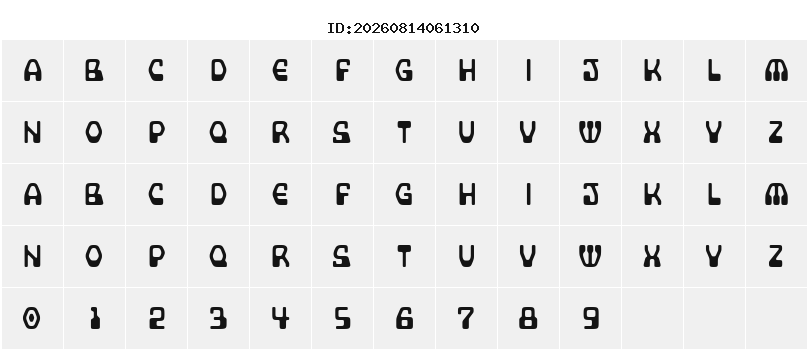
• Font Name: Supercomputer
• Designer: Andrew Young
About Supercomputer.ttf
Supercomputer.ttf is a modern, elegant sans-serif font designed for ultimate readability and visual harmony. Perfect for branding, headlines, web design, and print materials.